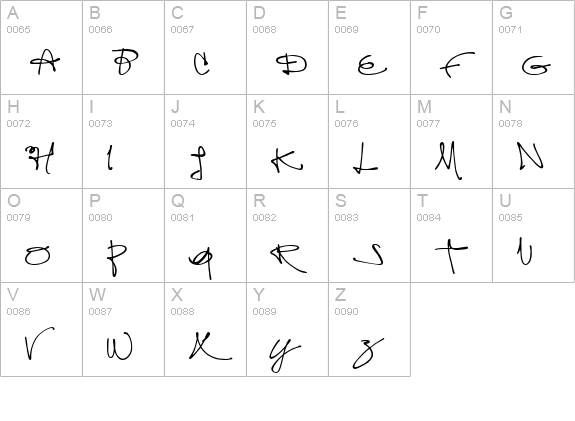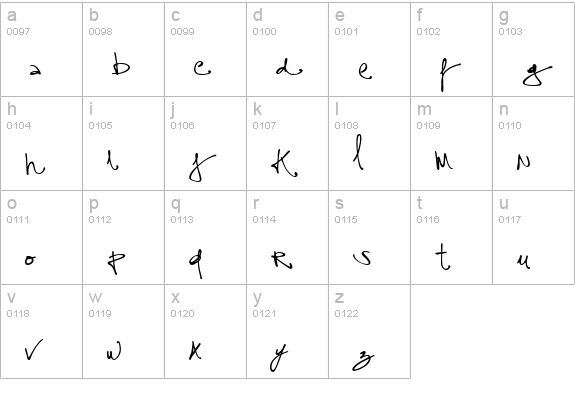
assign Font Details
The Assign font is a modern and versatile typeface that is perfect for a variety of design projects. With its clean lines and elegant curves, Assign adds a touch of sophistication to any text. Whether you are working on a website, logo, or print design, this font will elevate your work to the next level. The best part about the Assign font is that it is completely free to download at FontsMarket.com. This means you can use it in your projects without having to worry about any licensing fees. Take advantage of this amazing offer and give your designs a professional and polished look with the Assign font.